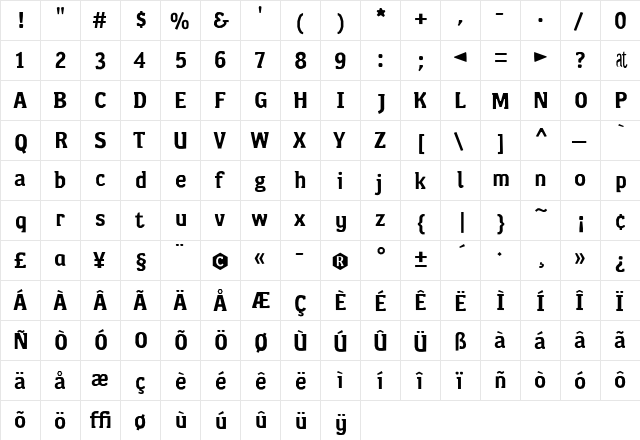
Cornwall Bold Font Preview
Cornwall Bold
Cornwall Bold Font Details
| Foundry | Copr. Jens Gehlhaar GagaFonts |
Design Context for Cornwall Typeface
Cornwall offers clean, dependable letterforms without strong stylistic allegiance, making it a practical choice for designers who need flexibility. The heavy weight commands attention and anchors typographic hierarchies.